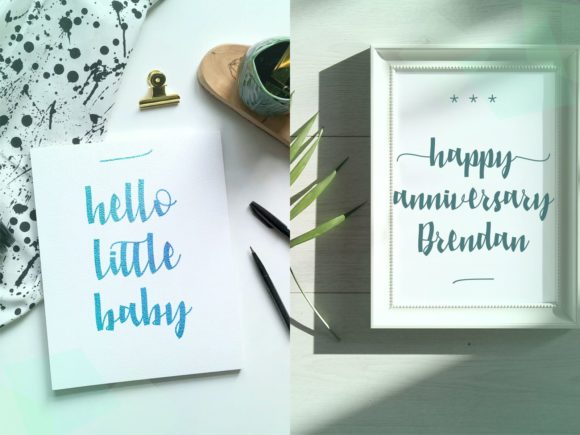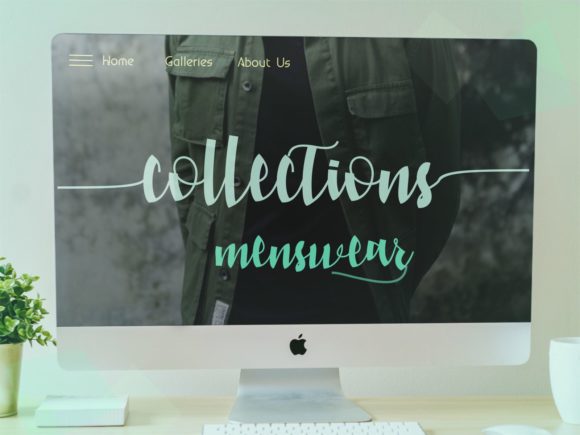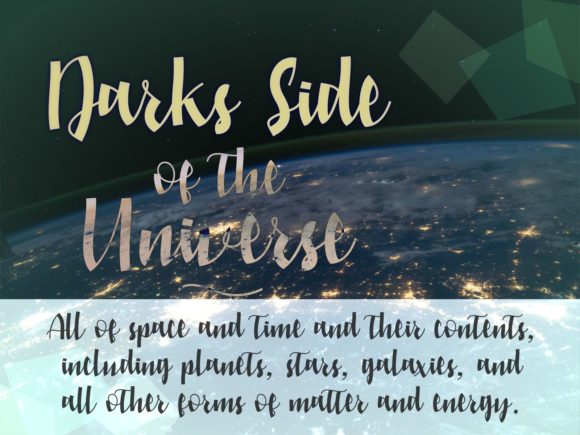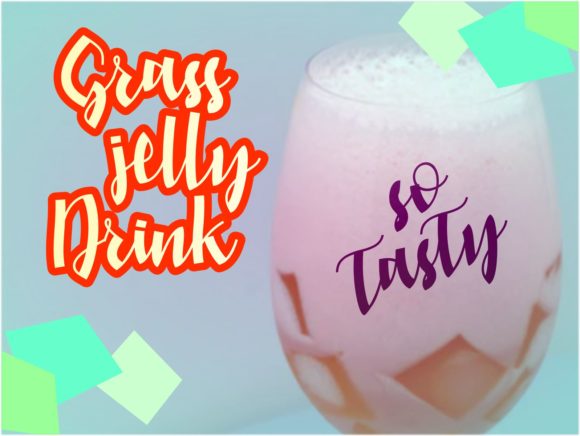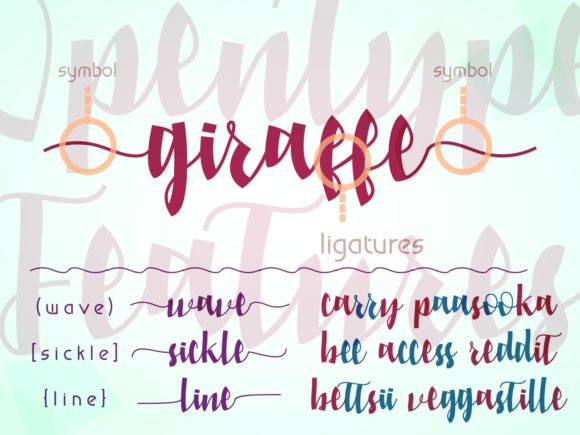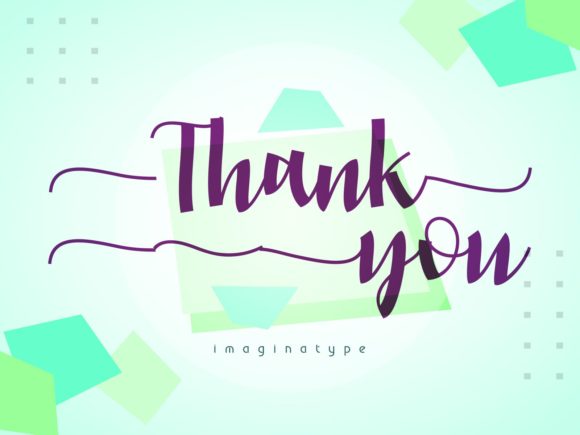
Introducing Amstein Font: Elevate Your Designs with Elegance and Flair
Are you on the hunt for a font that exudes sophistication, elegance, and a touch of whimsy? Look no further than Amstein Font, a delicate and flowing handwritten font that is sure to take your designs to the next level. With its beautiful and well-balanced characters, Amstein Font is the perfect addition to any creative project, from crafting and scrapbooking to graphic design and digital art.
The Characteristics of Amstein Font
Amstein Font is a true gem in the world of typography. Its delicate and elegant strokes are reminiscent of handwritten calligraphy, yet it remains effortlessly readable and versatile. The font’s flowing lines and curves create a sense of movement and fluidity, making it perfect for designs that require a touch of dynamism and energy.
One of the standout features of Amstein Font is its exceptional balance and harmony. Each character is carefully crafted to ensure that the font looks stunning on its own and in combination with other design elements. Whether you’re creating a logo, a poster, or a social media graphic, Amstein Font is sure to complement your design with its refined and sophisticated aesthetic.
Why Amstein Font is a Must-Have for Designers and Crafters
So, what makes Amstein Font a must-have for designers and crafters? For starters, its versatility is unmatched. The font’s elegant and flowing design makes it suitable for a wide range of projects, from formal and professional to playful and whimsical. Whether you’re working on a wedding invitation, a business card, or a DIY craft project, Amstein Font is sure to add a touch of sophistication and style.
Another reason why Amstein Font is a favorite among designers and crafters is its ability to evoke emotions and create a sense of connection with the audience. The font’s delicate and handwritten strokes convey a sense of warmth and personality, making it perfect for designs that require a personal touch.
How to Use Amstein Font in Your Designs
Using Amstein Font in your designs is incredibly easy. Here are a few tips to get you started:
- Pair Amstein Font with bold and geometric shapes to create a striking contrast and add visual interest to your design.
- Use Amstein Font as a headline font to add a touch of elegance and sophistication to your design.
- Experiment with different colors and textures to add depth and dimension to your design.
- Don’t be afraid to mix and match Amstein Font with other fonts to create a unique and eye-catching combination.
Tips and Tricks for Getting the Most Out of Amstein Font
Here are a few tips and tricks to help you get the most out of Amstein Font:
- Pay attention to font size and spacing to ensure that your design looks balanced and harmonious.
- Experiment with different font styles and variations to add visual interest and create a unique look.
- Use Amstein Font consistently throughout your design to create a cohesive and polished look.
In conclusion, Amstein Font is a delicate, elegant, and flowing handwritten font that is sure to elevate your designs to the next level. With its beautiful and well-balanced characters, Amstein Font is the perfect addition to any creative project. Whether you’re a designer, crafter, or DIY enthusiast, Amstein Font is a must-have in your font collection. So why wait? Add Amstein Font to your designs today and notice how it brings your creative ideas to life!